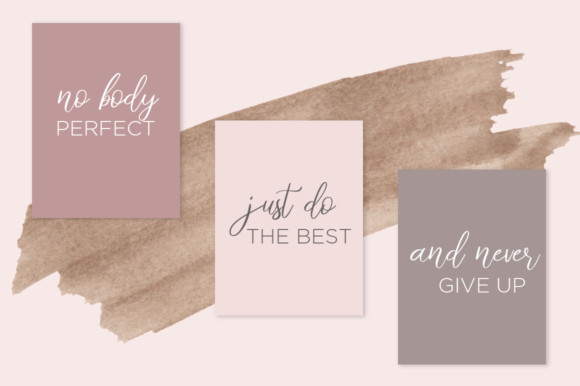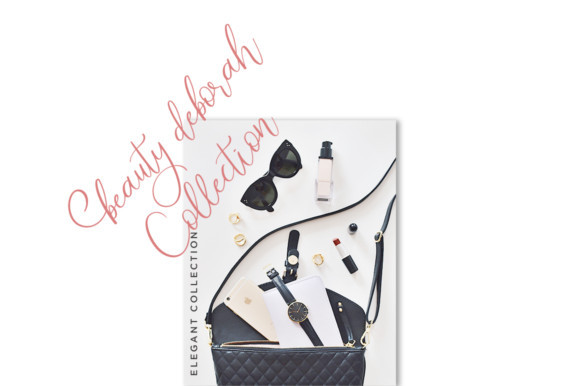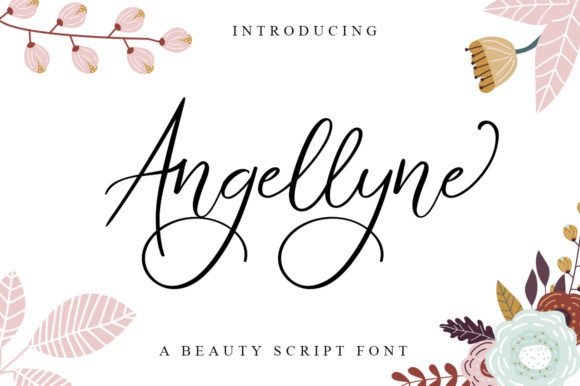
Angellyne Font
The Angellyne Script is a stunning handwritten font, packed with elegant swashes.
It has a casual chic design style. It’s calligraphy-styled letters will turn any ordinary design into a fancy-looking design within seconds.